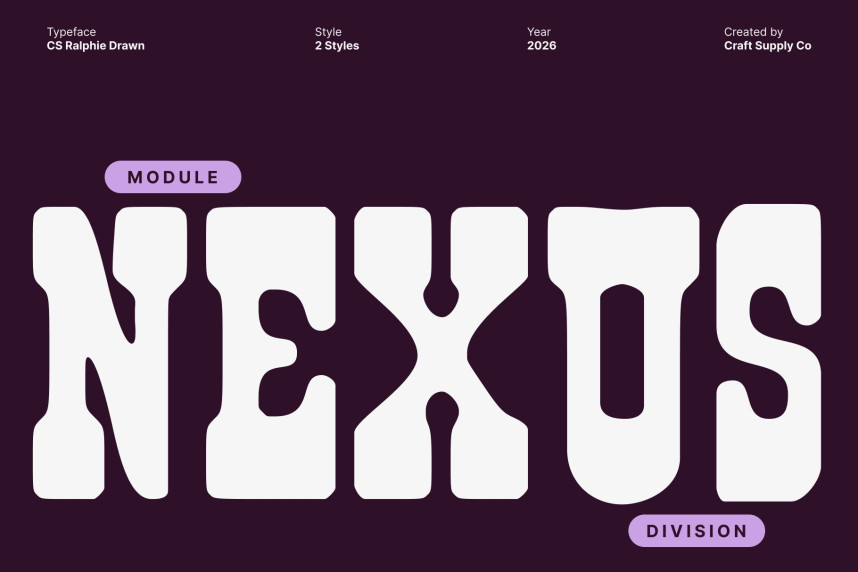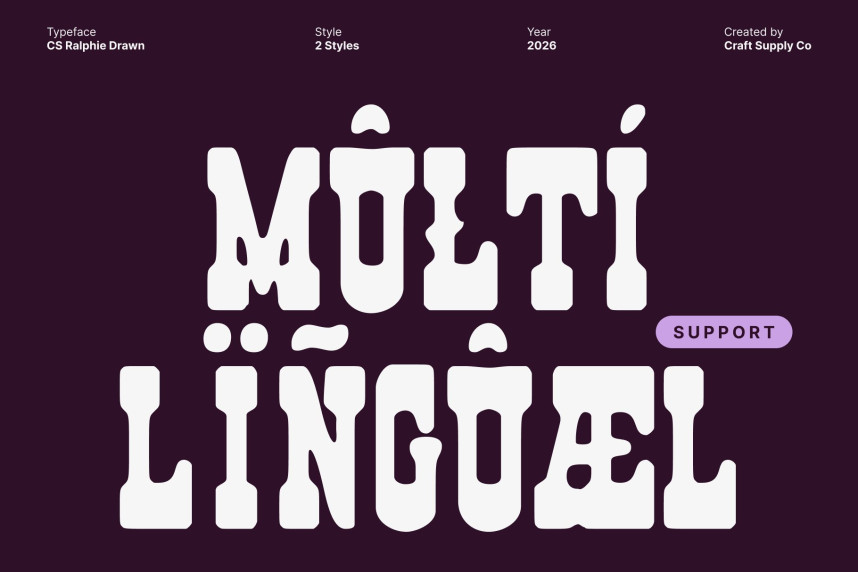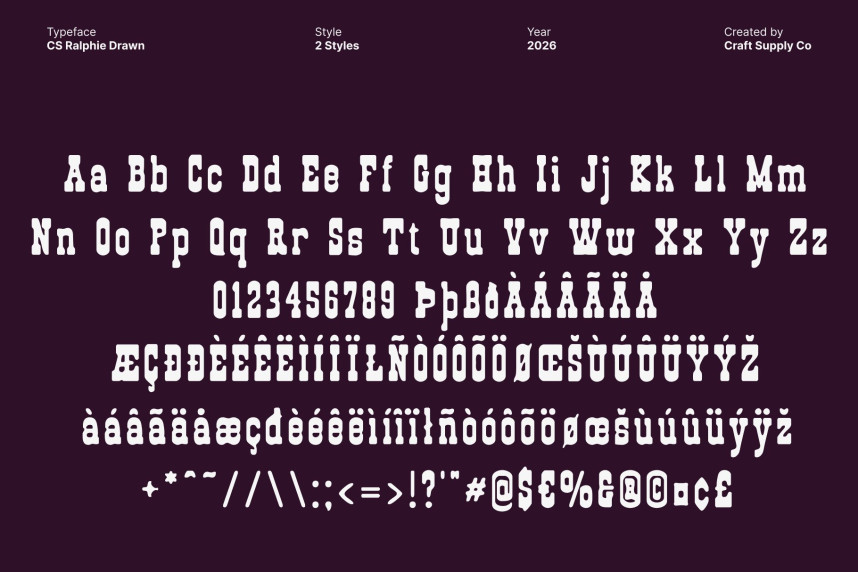
CS Ralphie Drawn Font
CS Ralphie Drawn Font – Western Display Font with Slab Serif and Reverse Contrast Character Rooted in Old Western Spirit. This is a striking western display font inspired by vintage frontier signage, saloon posters, and rugged hand-painted lettering. Its design captures the raw atmosphere of the old West, blending bold structure with a handcrafted drawn texture that adds authenticity and character. The result is a font that feels expressive, nostalgic, and visually powerful.